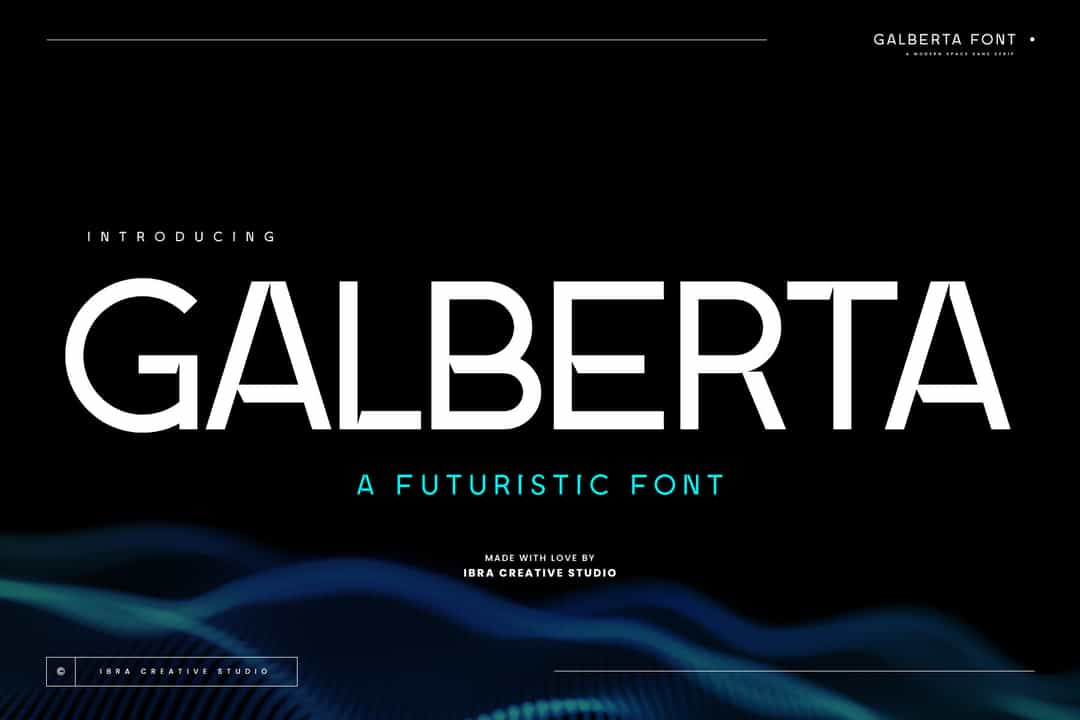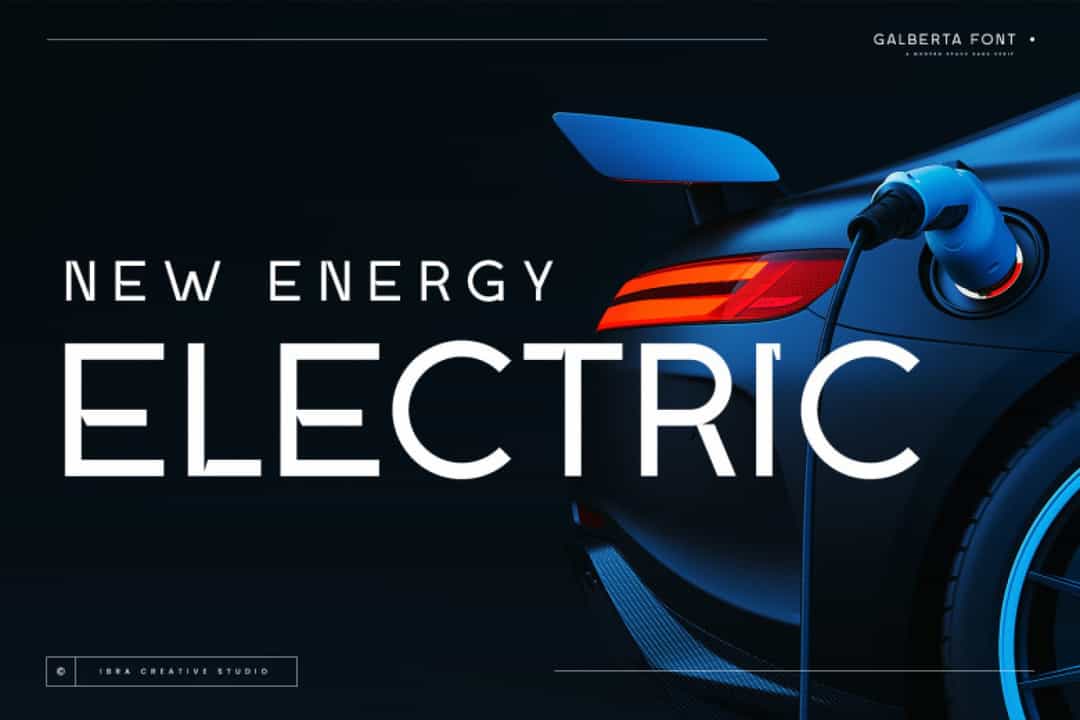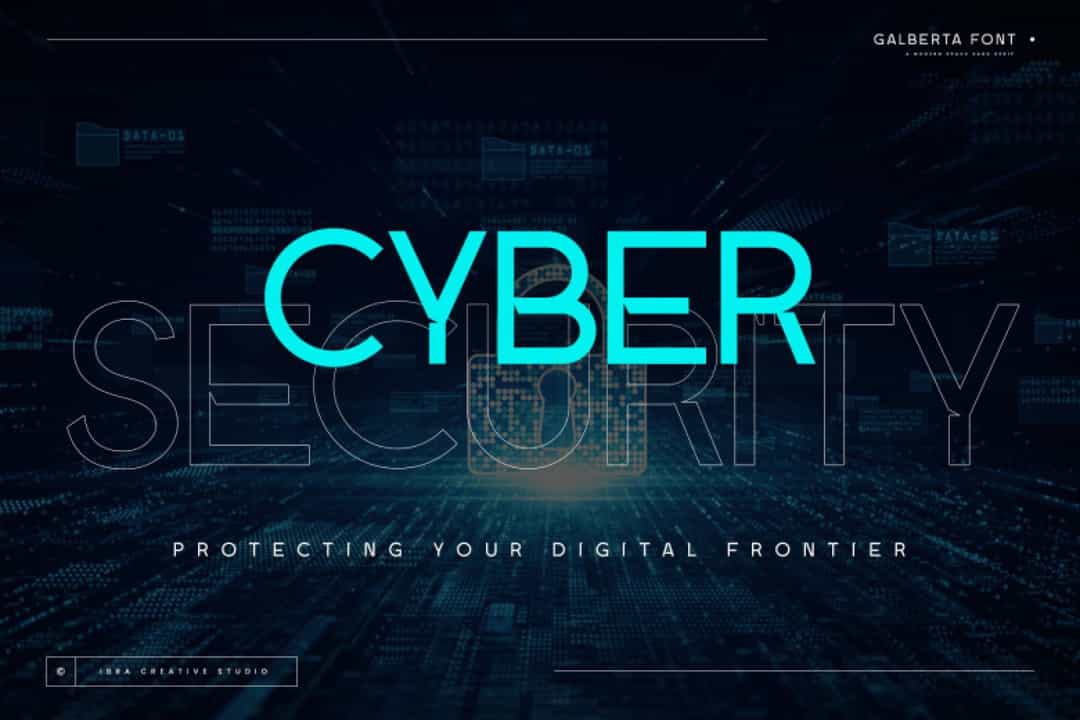
Galberta, a futuristic sans-serif font is at the core of modern typography with its stylish yet modern appearance. Its geometric characters seamlessly mix sharp lines with soft curves for a timeless and minimal appeal, creating a sense of minimalism and modernity.